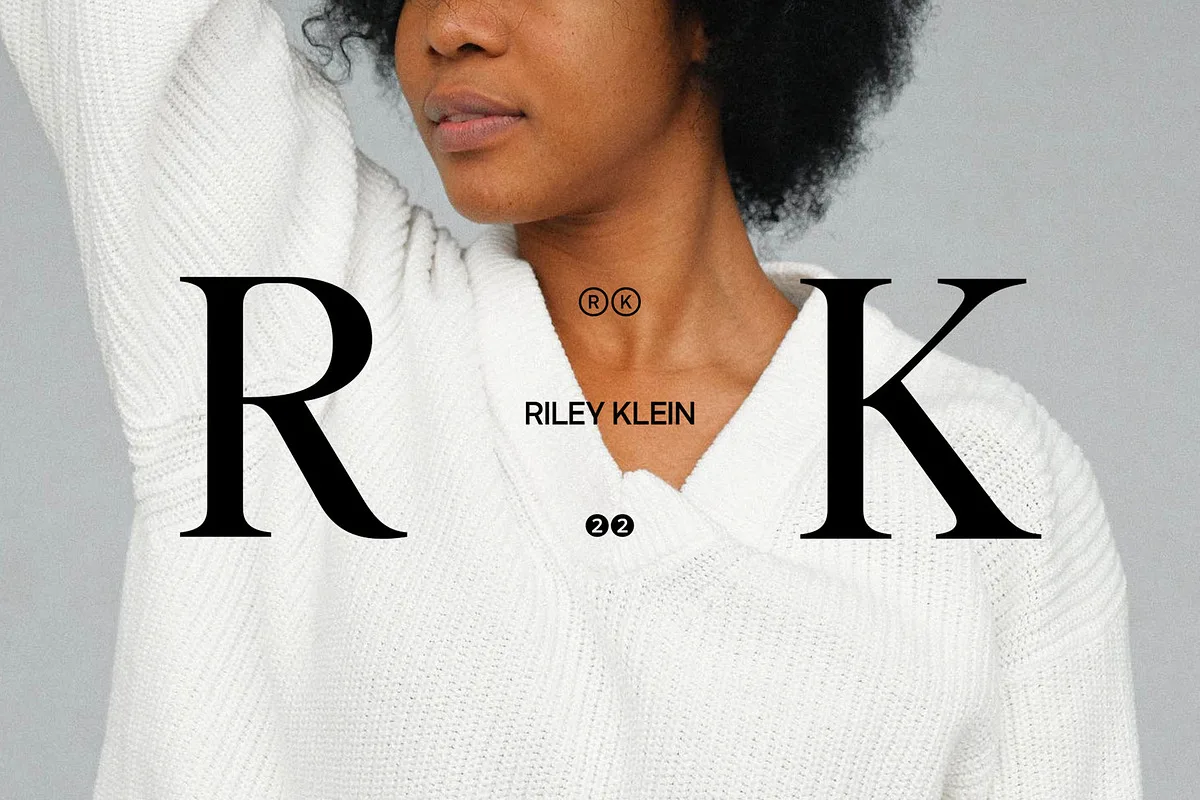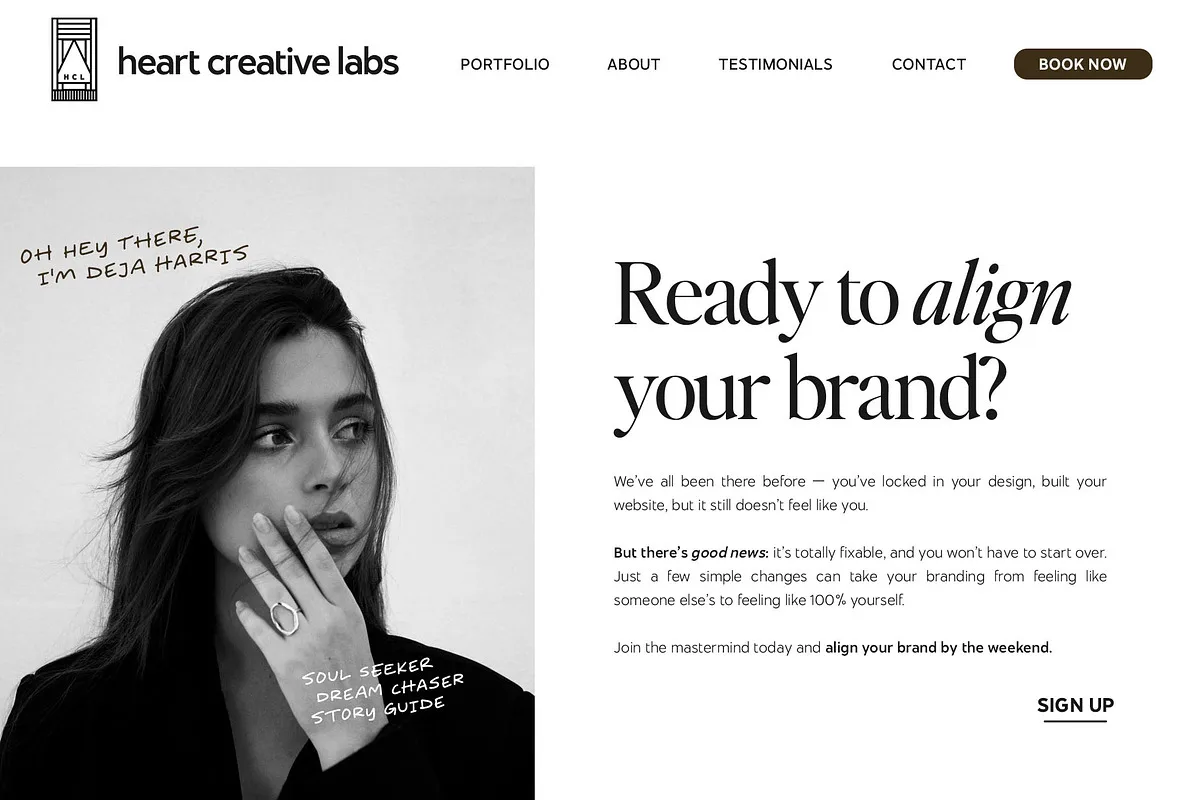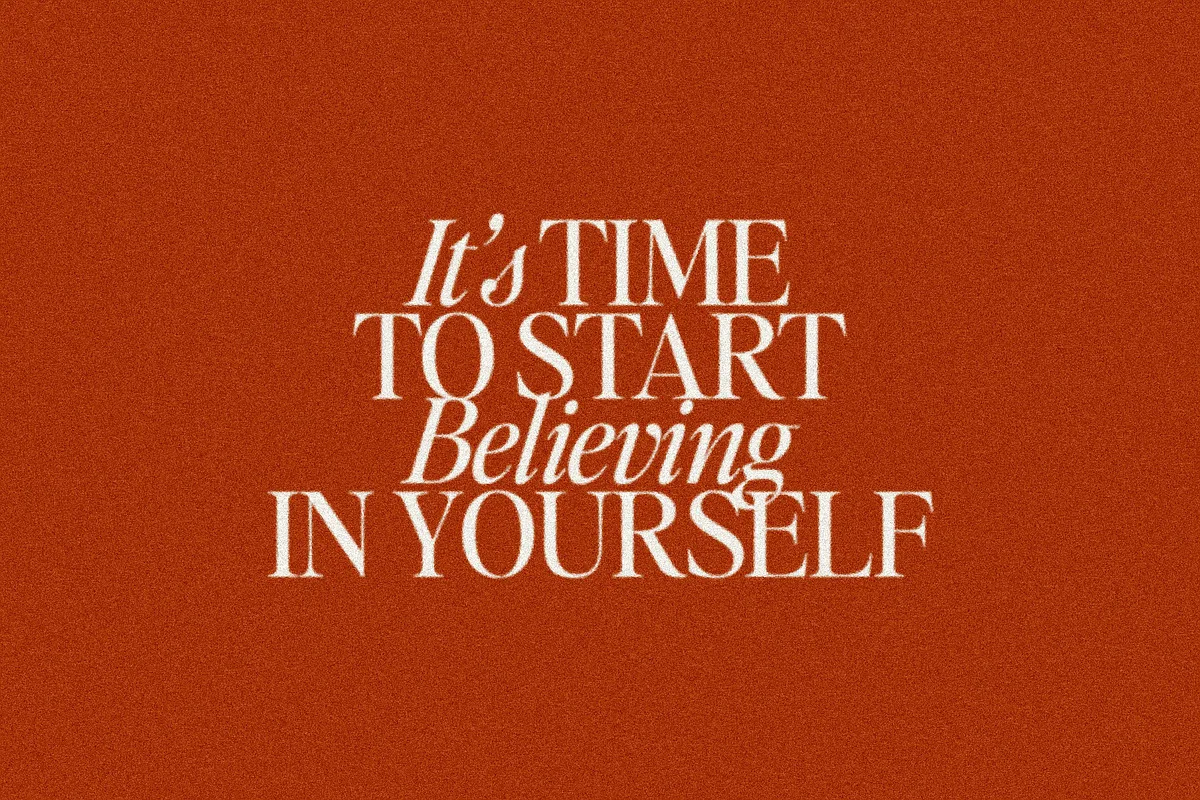
Introducing Editor’s Note Font – a brand new editorial serif with all the clean lines, tight curves, and trendy minimalist vibes!
I’ve been loving the clean, editorial type trend happening in design right now (let’s be real, there’s always a place for timeless editorial type).
Editor’s Note is a stunningly crisp upper and lowercase typeface that looks incredible in both large settings as a display text (think big headers, pretty quotes, calls to action, etc.).
I’ve been loving combining the regular and italic, especially in big, bold quotes (see the “It’s time to start believing in yourself” quote, image #3)
One thing to note about Editor’s Note is the letter spacing. It was intentionally spaced for clean reading and intentional balance, so I recommend setting the spacing a little tighter if you want to create the trendy, all caps look found in many of these images, like image #2 (around -20 to -35 should do!).
- Uppercase & lowercase
- Numbers & punctuation
- Foreign language support
Editor’s Note Clean Editorial Serif